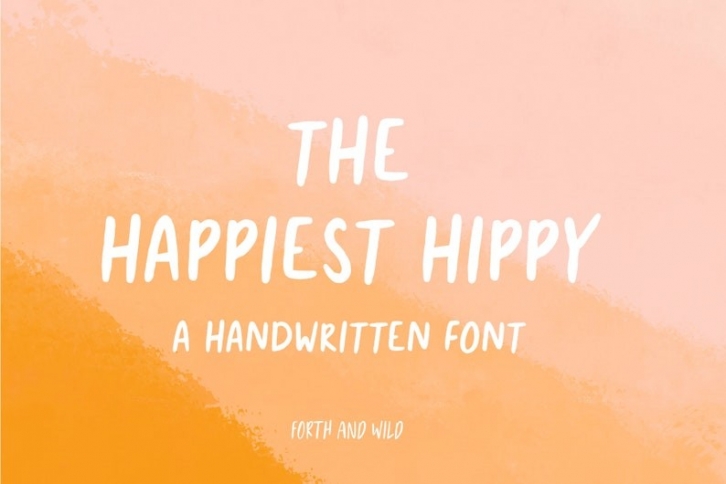
The Happiest Hippy is a clean and neat paint brushed display font. Whatever the topic, this font will be a wonderful asset to your font library, as it has the potential to enhance any creation.